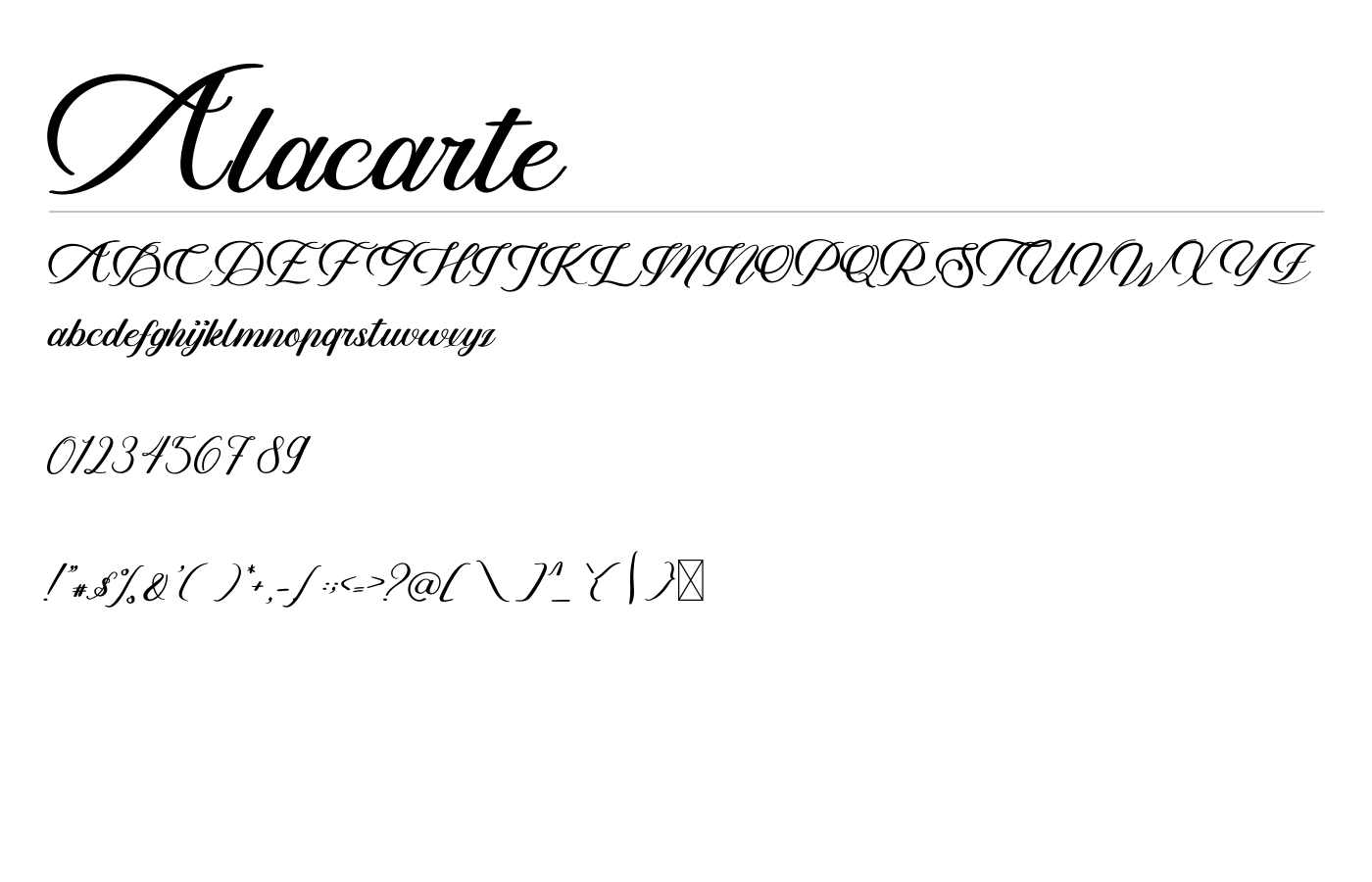
Alacarte is an elegant, cursive script font with a refined and flowing style that evokes sophistication and grace. Its fine strokes and smooth curves make it ideal for luxury branding, invitations, and titles where a touch of classic charm is desired. This font works best in contexts that call for a refined, personal, and stylish look, such as wedding cards, high-end products, and elegant editorial headings.
Alacarte Font